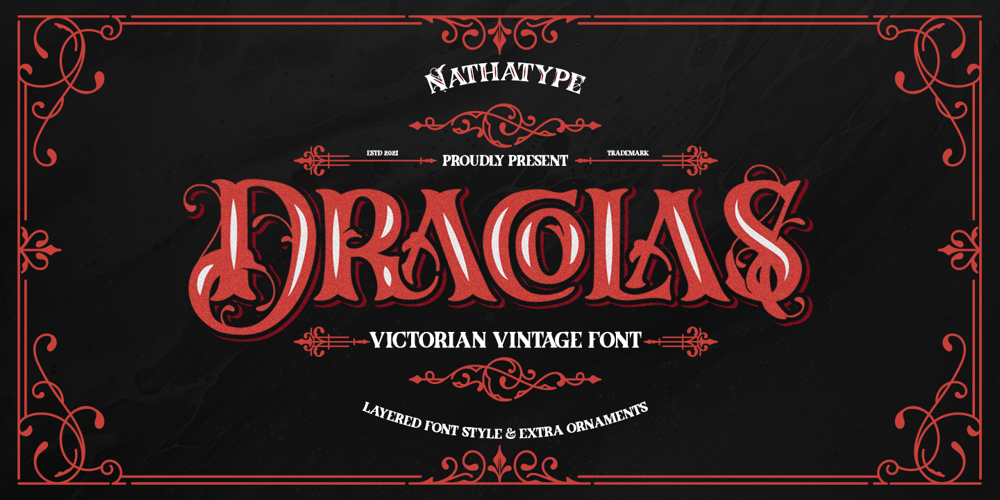
Dracolas Font Family was designed by Donis Miftahudin and published by Nathatype. Dracolas contains 3 styles and family package options. Ready to make your branding spark? If you need to create a big, bold logo for your business, work on a poster for an event, or whatever your project may be-then this is the perfect font for you. Dracolas-A Vintage FontDracolas is a captive font designed with strong outlines and fat strokes to bring your branding to life and add a touch of retro vibes. This font features thick letters all in uppercase that easy on the eyes and nice to look while it’s also easy to read. Dracolas becomes more special with best bonus. Perfect to create amazing headings, logos, menus, social media graphics, and many more. Our font always includes Multilingual Support to make your branding reach a global audience. Features: Ligatures Alternates Bonus Ornament PUA Encoded Numerals and Punctuation Thank you for downloading premium fonts from Nathatype